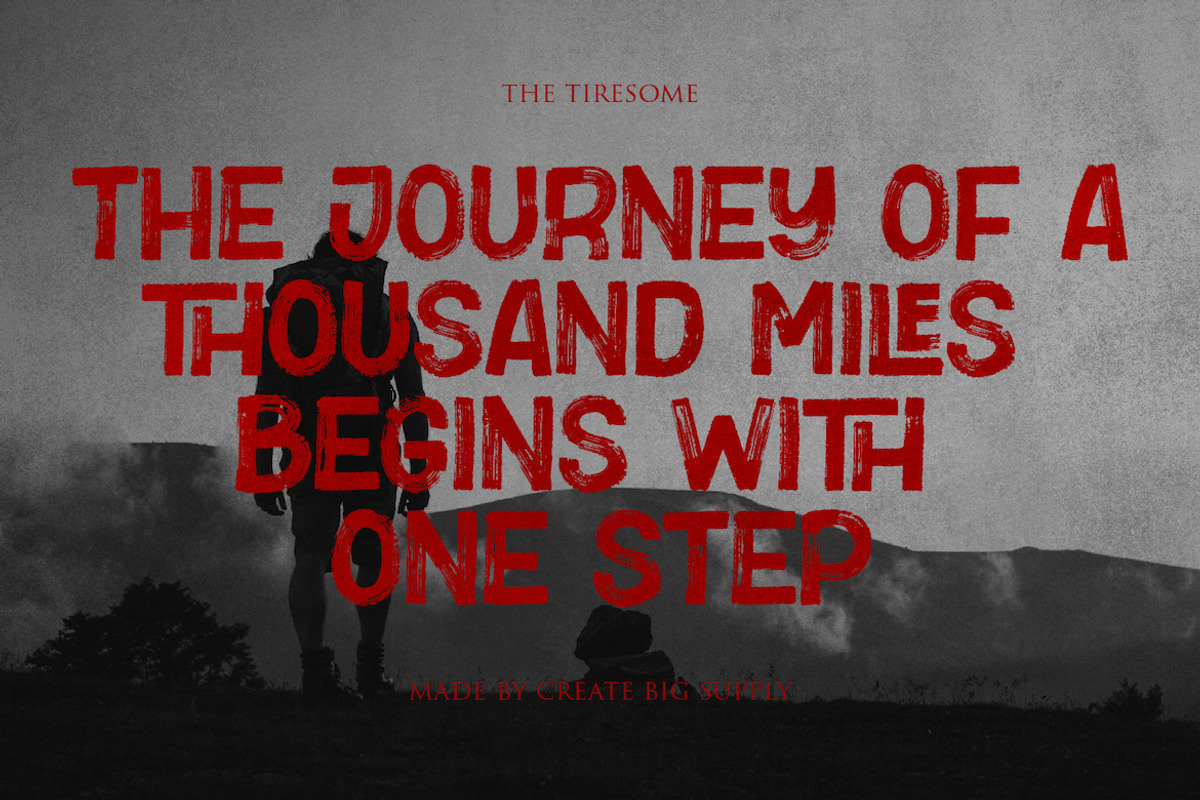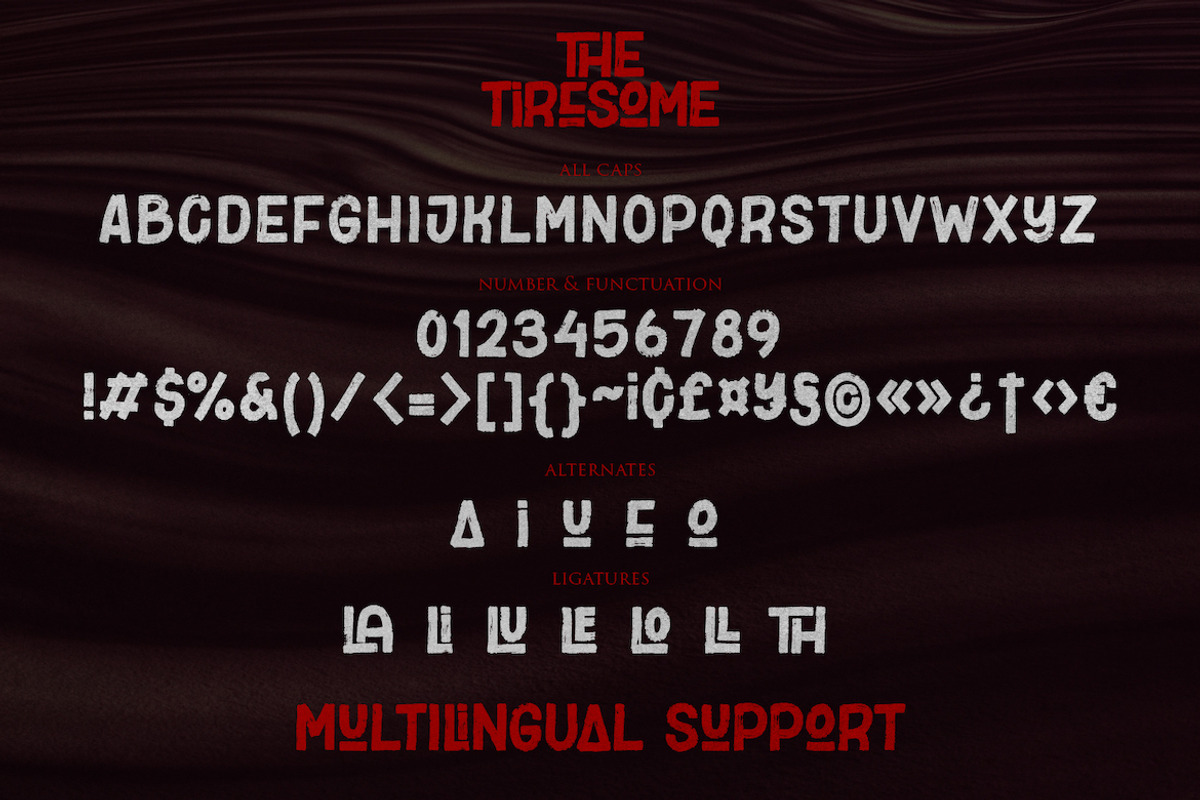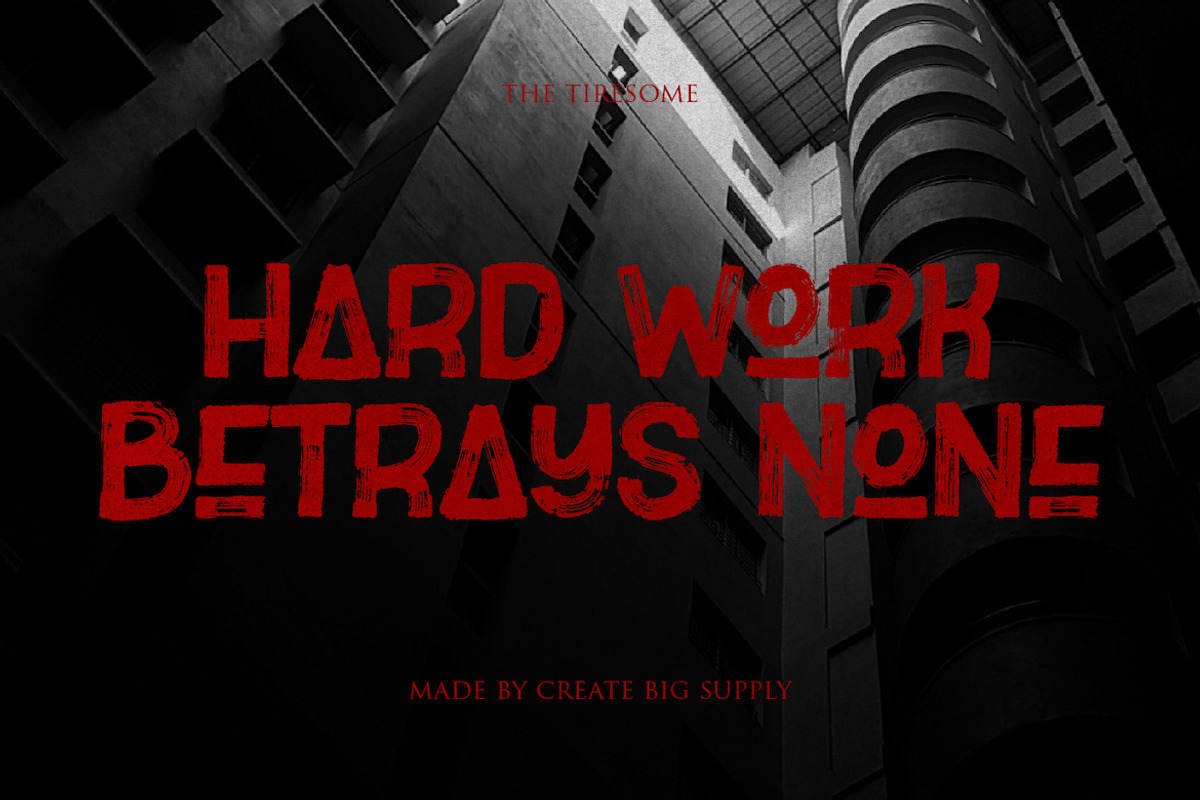
The Tiresome Bold Sans Serif Brush
Discover The Tiresome, a remarkable sans serif brush font that exudes boldness and strength. With its distinct and powerful characters, this font adds a unique touch to your designs, making them stand out from the crowd. The Tiresome is perfect for projects that require a strong and impactful typography, such as branding, headlines, posters, and more. This font supports both uppercase and lowercase letters, numbers, and punctuations, ensuring versatility in your designs. It also offers multilingual support, allowing you to communicate your message to a global audience. The font is PUA encoded, granting easy access to its extensive collection of glyphs and swashes. Elevate your designs with The Tiresome and make a lasting impression.